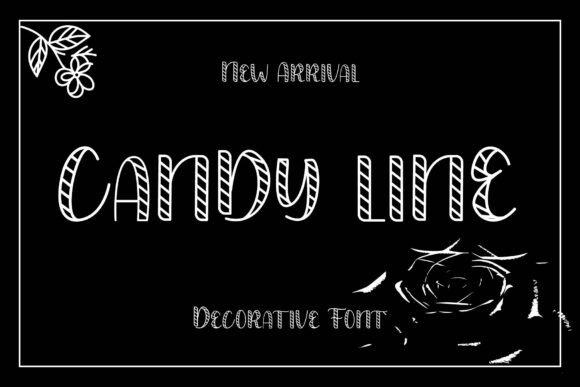
Candy Line Font and Black Rose: A Fusion of Vintage Elegance and Playful Decorative Typography
In the world of typography, few collections manage to strike a balance between vintage elegance and playful decorative design. However, the Candy Line & Black Rose typography collection achieves this feat with remarkable precision. This unique blend of classic and modern styles offers designers a versatile toolkit for a wide range of creative projects. From branding and packaging to signage and greeting cards, this collection’s diverse typography options are sure to inspire.
Candy Line Font: A Playful and Sweet Aesthetic
The Candy Line font is a standout in this collection, boasting artistic striped details that resemble candy. This playful and sweet aesthetic makes it perfect for branding and creative packaging projects that require a touch of whimsy. The font’s classic vintage style provides a timeless backdrop for the candy-inspired details, resulting in a truly unique and eye-catching design.
One of the key benefits of the Candy Line font is its versatility. It can be used in a variety of design contexts, from children’s products and party decorations to gourmet food packaging and boutique branding. The font’s playful nature also makes it an excellent choice for creative projects that require a lighthearted and approachable tone.
Black Rose: Elegant and Mysterious Typography
In stark contrast to the playful Candy Line font, Black Rose offers an elegant and mysterious feel. Enhanced by rose illustrations, this typography exudes a romantic and exclusive charm that is perfect for luxury brands and high-end products. The Black Rose font is ideal for designers looking to create a sophisticated and refined aesthetic that commands attention and respect.
The Black Rose font is particularly well-suited for projects that require a sense of luxury and exclusivity. From high-end fashion branding to premium product packaging, this font’s elegant and mysterious nature makes it an excellent choice. The rose illustrations add a touch of romance and whimsy, elevating the font to a truly unique and captivating design.
Tempore Docere: A Retro-Inspired Classic
The Tempore Docere font takes us back to the retro era with its classic automotive-inspired look. This typography is reminiscent of vintage car signs and advertisements, evoking a sense of nostalgia and timelessness. The font’s bold and striking design makes it perfect for projects that require a strong and attention-grabbing aesthetic.
One of the key benefits of the Tempore Docere font is its ability to evoke a sense of history and tradition. From vintage-inspired branding to retro-style signage, this font’s classic design makes it an excellent choice for designers looking to create a nostalgic and memorable aesthetic.
The “Thank You” Design: Artistic and Graceful Typography
The “Thank You” design in this collection embodies an artistic and graceful touch that is perfect for uniquely crafted greeting cards and stationery. This typography features elegant lines and delicate details, creating a sophisticated and refined aesthetic that is sure to impress.
One of the key benefits of the “Thank You” design is its versatility. It can be used in a variety of design contexts, from formal events and weddings to everyday correspondence and gift-giving. The design’s artistic and graceful nature makes it an excellent choice for designers looking to create a memorable and impactful aesthetic.
Benefits of the Candy Line & Black Rose Collection
The Candy Line & Black Rose typography collection offers a range of benefits for designers, including:
- Versatility: This collection offers a diverse range of typography options, making it suitable for a wide range of design projects.
- Unique Style: The collection’s unique blend of vintage elegance and playful decorative design sets it apart from other typography collections.
- Elegance and Whimsy: From the elegant Black Rose font to the playful Candy Line font, this collection offers a range of design options that combine elegance and whimsy.
Design Inspiration: Bringing the Collection to Life
The Candy Line & Black Rose typography collection is a treasure trove of design inspiration, offering a range of creative possibilities for designers. Here are a few ideas to get you started:
- Vintage Signage: Use the Tempore Docere font to create vintage-inspired signage that evokes a sense of nostalgia and timelessness.
- Luxury Packaging: The Black Rose font is perfect for luxury packaging projects that require a sense of elegance and sophistication.
- Greeting Cards: The “Thank You” design is ideal for uniquely crafted greeting cards and stationery that require a touch of artistic flair.
- Branding and Identity: Use the Candy Line font to create playful and memorable branding and identity designs that stand out from the crowd.
In conclusion, the Candy Line & Black Rose typography collection is a versatile and inspiring toolkit for designers. With its unique blend of vintage elegance and playful decorative design, this collection offers a range of creative possibilities for a wide range of design projects. Whether you’re looking to create vintage-inspired signage, luxury packaging, or uniquely crafted greeting cards, this collection has something to offer.